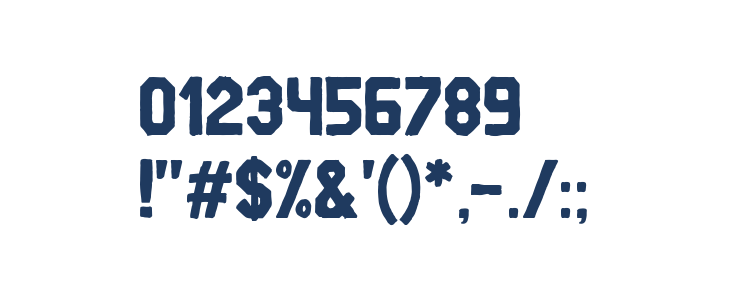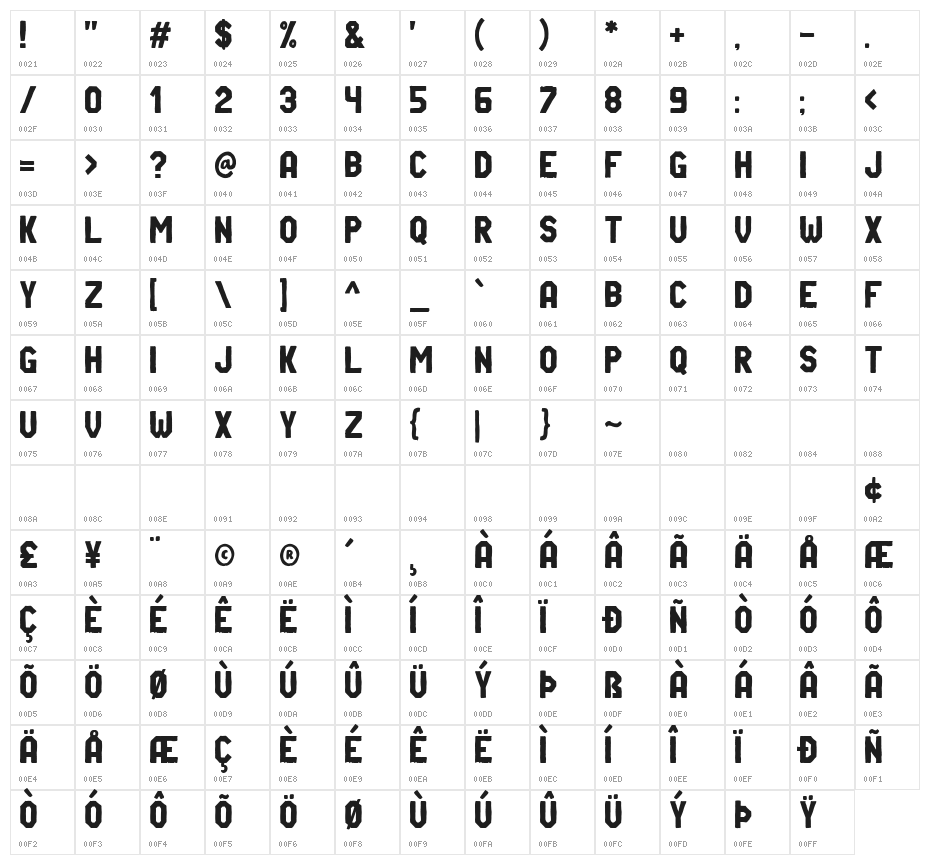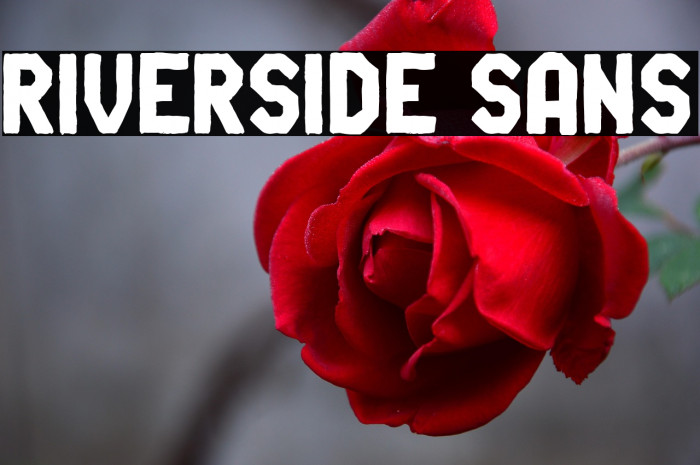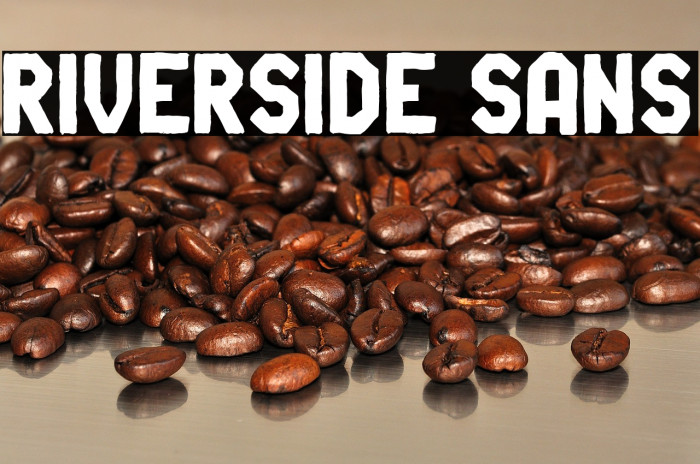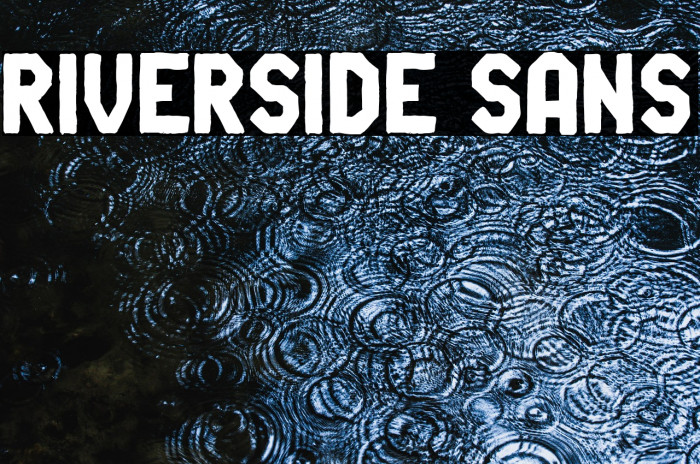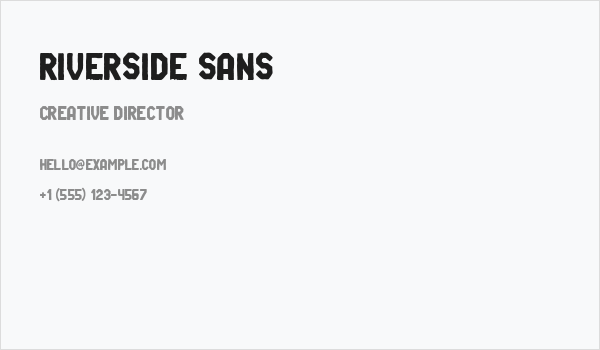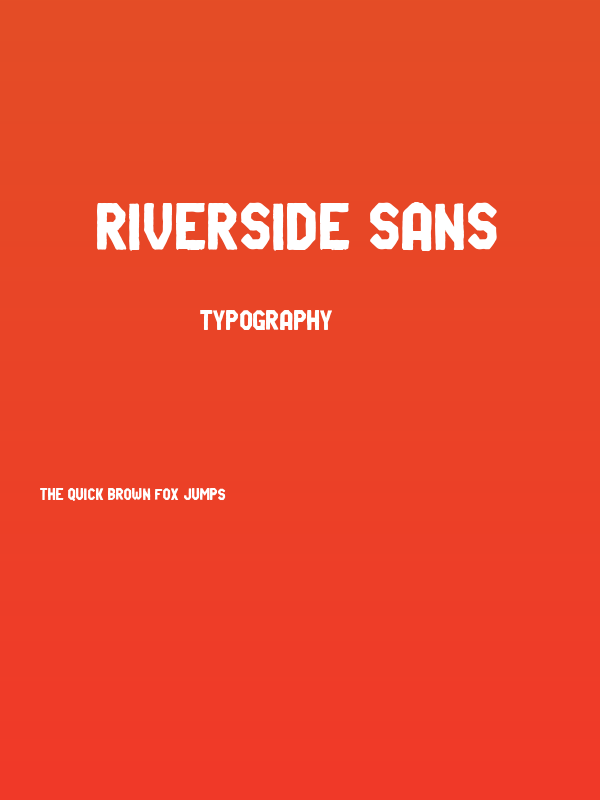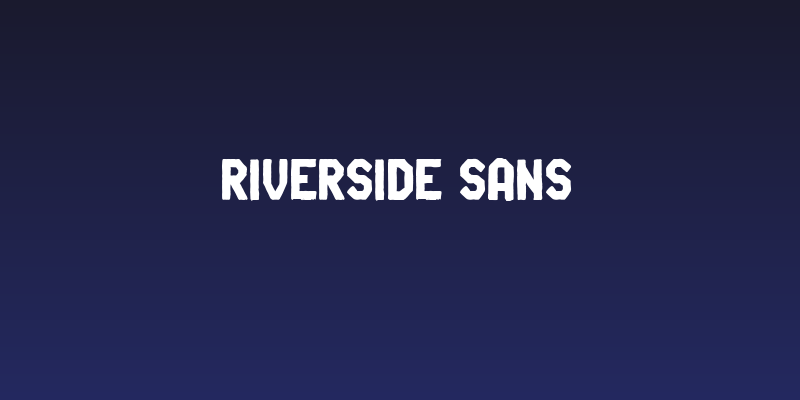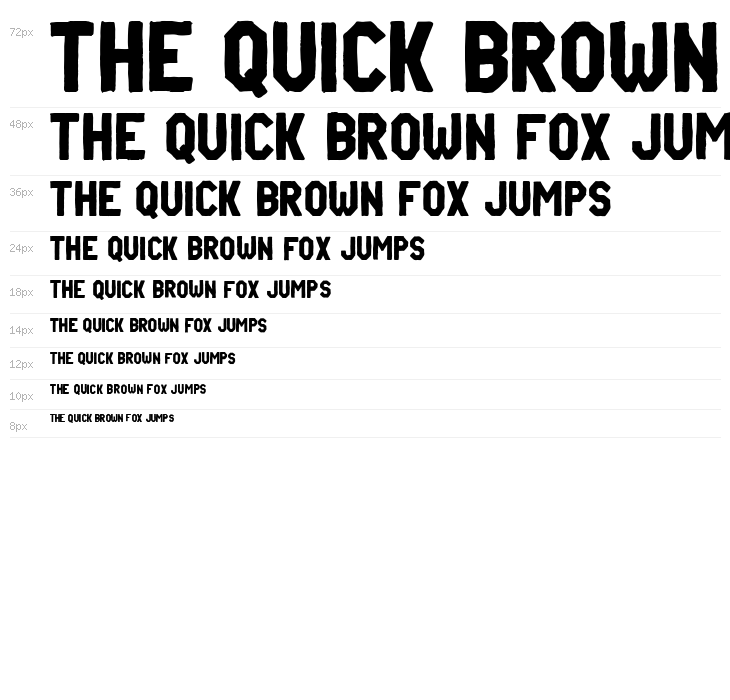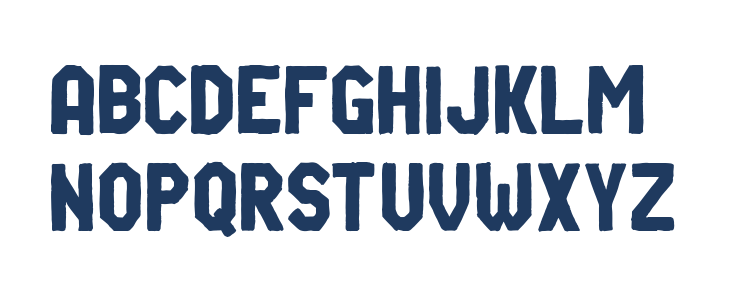
Riverside Sans Font
Riverside Sans Description
This font features a bold and rugged design with a distinctly hand-crafted appearance. The characters are blocky and angular, giving it a strong and impactful presence. The uppercase and lowercase letters maintain a consistent style, with thick strokes and slightly uneven edges that add to its organic feel. The numerals and special characters follow the same design principles, ensuring uniformity across the entire typeface. This font's unique style makes it stand out, offering a raw and authentic aesthetic that is both modern and timeless.
| Proposed Projects | Ideal for branding, posters, and headlines that require a strong, impactful visual presence. |